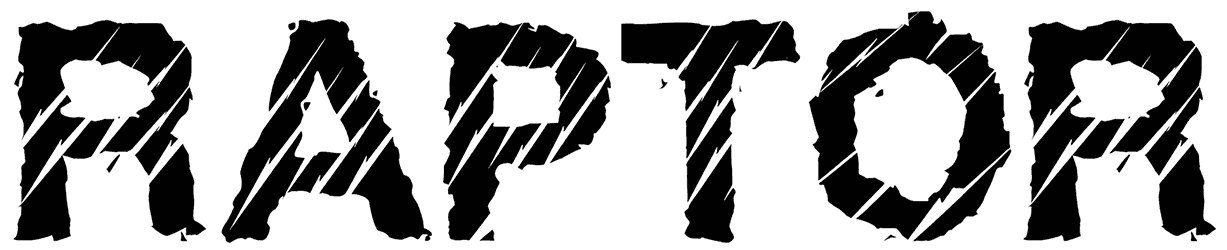
Raptor Font
Designed byFelipeOjeda
Raptor, like other glitch fonts, could be an excellent choice when you want to make a logo, packaging, clothing, or billboard that stands out from the crowd. This trashy and grungy font may be missing certain lowercase characters, but it will give your work a professional edge anyway.